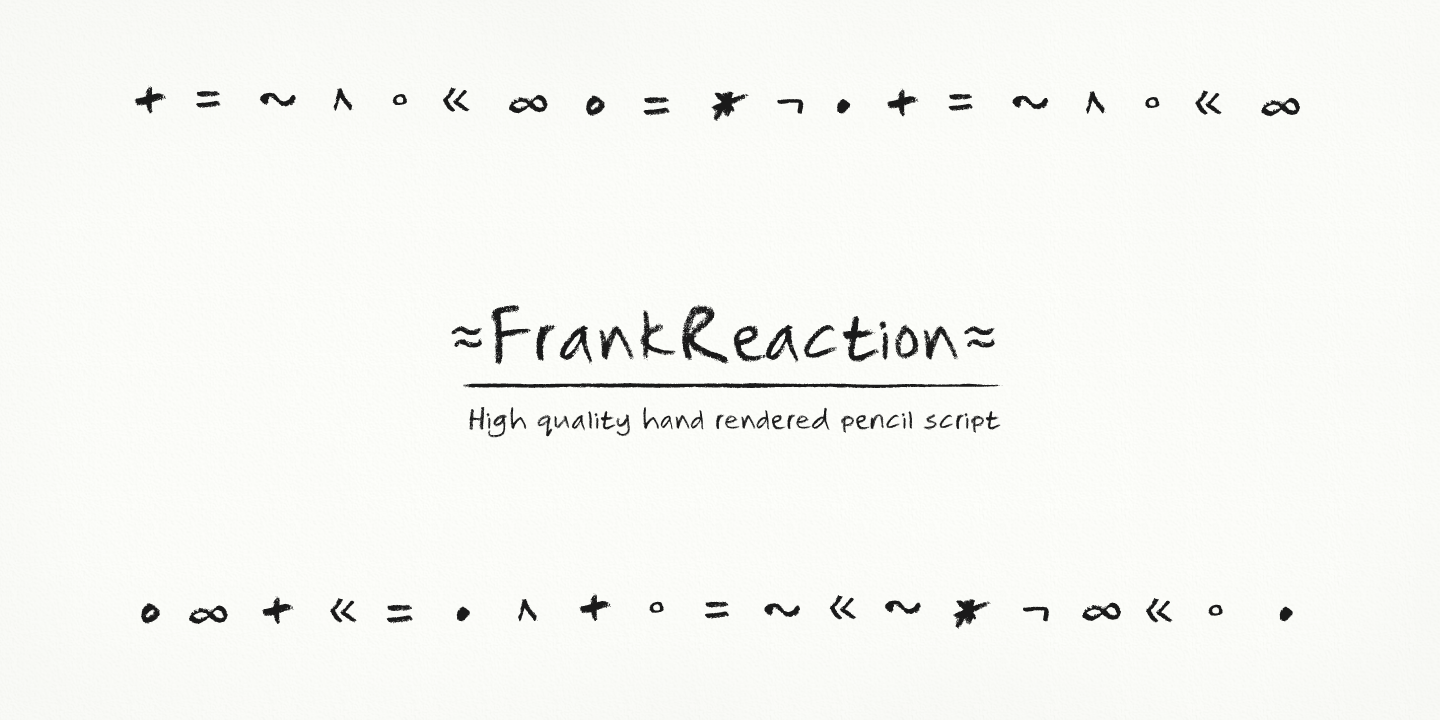
Frank Reaction Font is perfect for honest brand communications, transparent startup logos, direct marketing campaigns, authentic testimonial graphics, social media reaction posts, grassroots political messaging, and straightforward business presentations that require genuine, unfiltered typography.
This font is exciting because it embodies raw honesty and authentic expression, featuring bold, uncompromising letterforms that convey directness, transparency, and genuine human reaction while maintaining strong visual impact for truthful communications.
The Frank Reaction Font family includes regular and bold weights with expressive variants, offering uppercase and lowercase letters, honest numerals, reaction symbols, straightforward punctuation marks, and authentic decorative elements designed for genuine communication applications.
Authentic brand designers consistently choose Frank Reaction Font Free Download for projects requiring genuine transparency and honest brand personality. This powerful typeface transforms corporate communications into compelling statements of authenticity that immediately resonate with audiences seeking truthful brand interactions and genuine human connection. The font's direct character makes it exceptionally effective for startups, social impact organizations, and transparent brands where honesty and authentic voice must be communicated through every visual element. Its unfiltered nature bridges genuine human expression with professional communication standards, making it invaluable for brands committed to transparency and authentic customer relationships. The boldly crafted letterforms maintain their honest appeal across digital platforms and printed materials, ensuring consistent brand recognition and authentic messaging. Whether you're developing transparent startup branding, creating honest marketing campaigns, or designing authentic social media graphics, this typeface provides the genuine voice and visual honesty that distinguishes authentic brands from polished corporate communications, establishing immediate trust among audiences who appreciate straightforward communication and demand genuine transparency in an era of authentic brand storytelling and honest business practices.